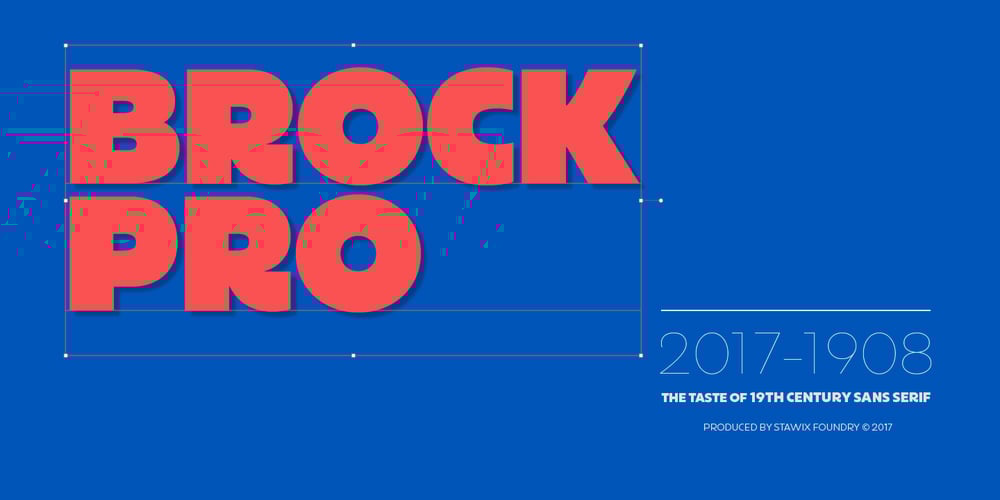
Brock Pro
Brock Pro font
Brock Pro Font Family was designed by Stawix Ruecha and published by Stawix. Brock Pro contains 20 styles and family package options. Brock Pro celebrate the essence of the famous 19th century wooden letterpress type, Block Berthold by bringing out its remarkable features and explicate them in relation to the modern day trend. Brock Pro is a conventional font with a twist, fun, easy to use and has a very particular tone of voice that suits numerous design purposes. Brock pro comes in 10 weights and 20 styles to support a wide range of usage, every needs and great building brands, Brock Pro also available in both ttf. and otf.